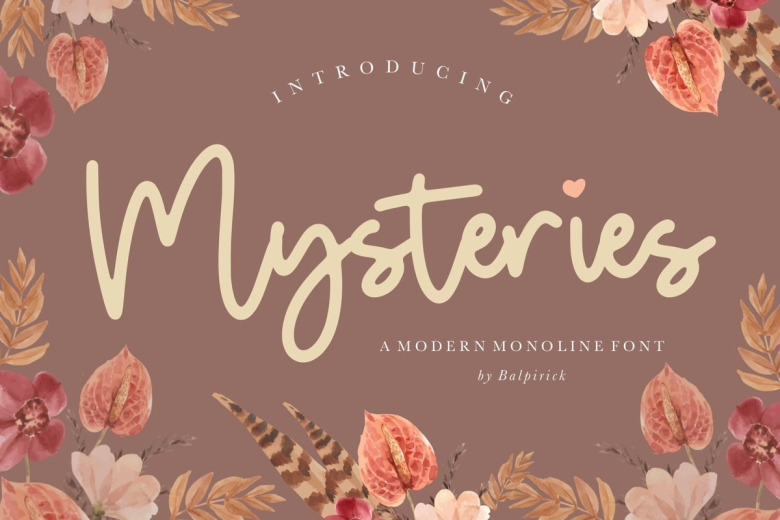
Mysteries Font
Mysteries Script Font is a modern monoline handwritten font. This font is equipped with uppercase, lowercase, numbers, punctuation, and several variations on each character including multi-language.